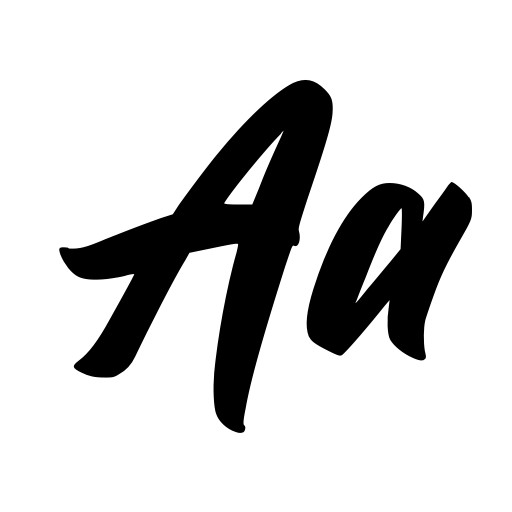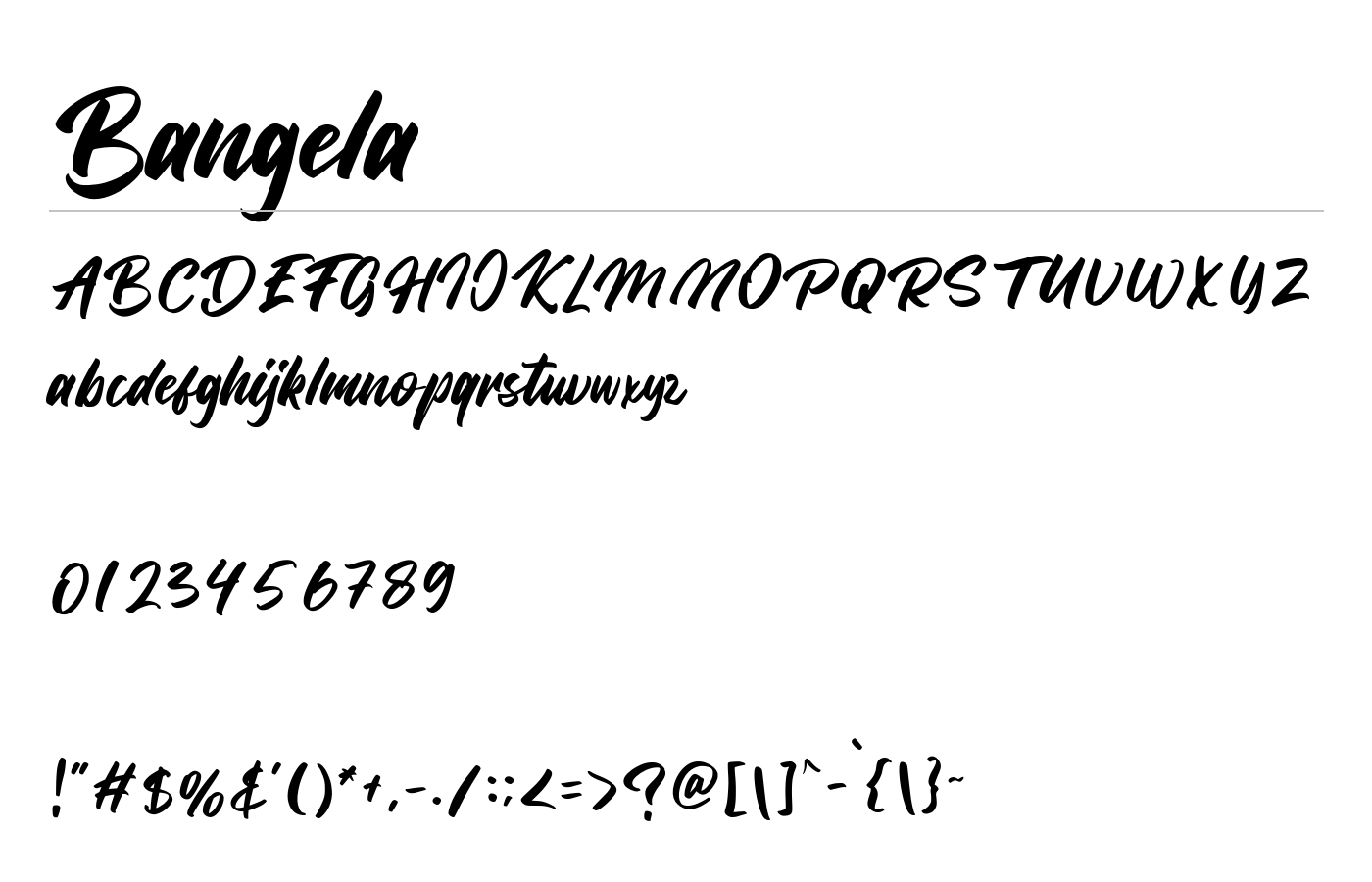
Bangela is a bold, brush-style script font that combines a lively, hand-painted feel with smooth, flowing strokes. Its energetic and modern personality makes it ideal for creative branding, logos, and headlines that want to convey a friendly yet confident vibe. This font works best in designs seeking a personal, artistic touch, especially in fashion, lifestyle, or casual contexts.
Bangela Font
About Bangela Font
| Font family | Bangela Font |